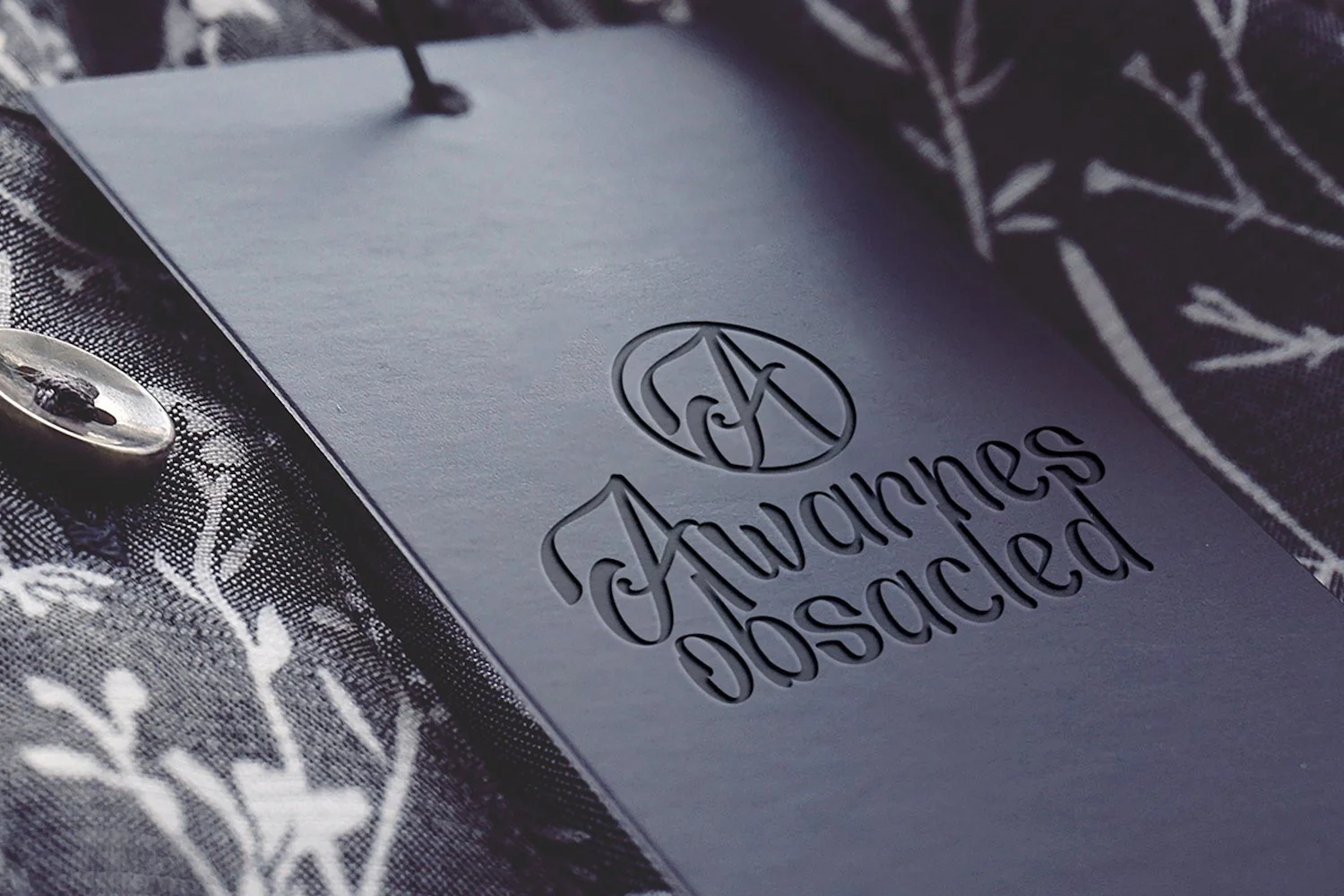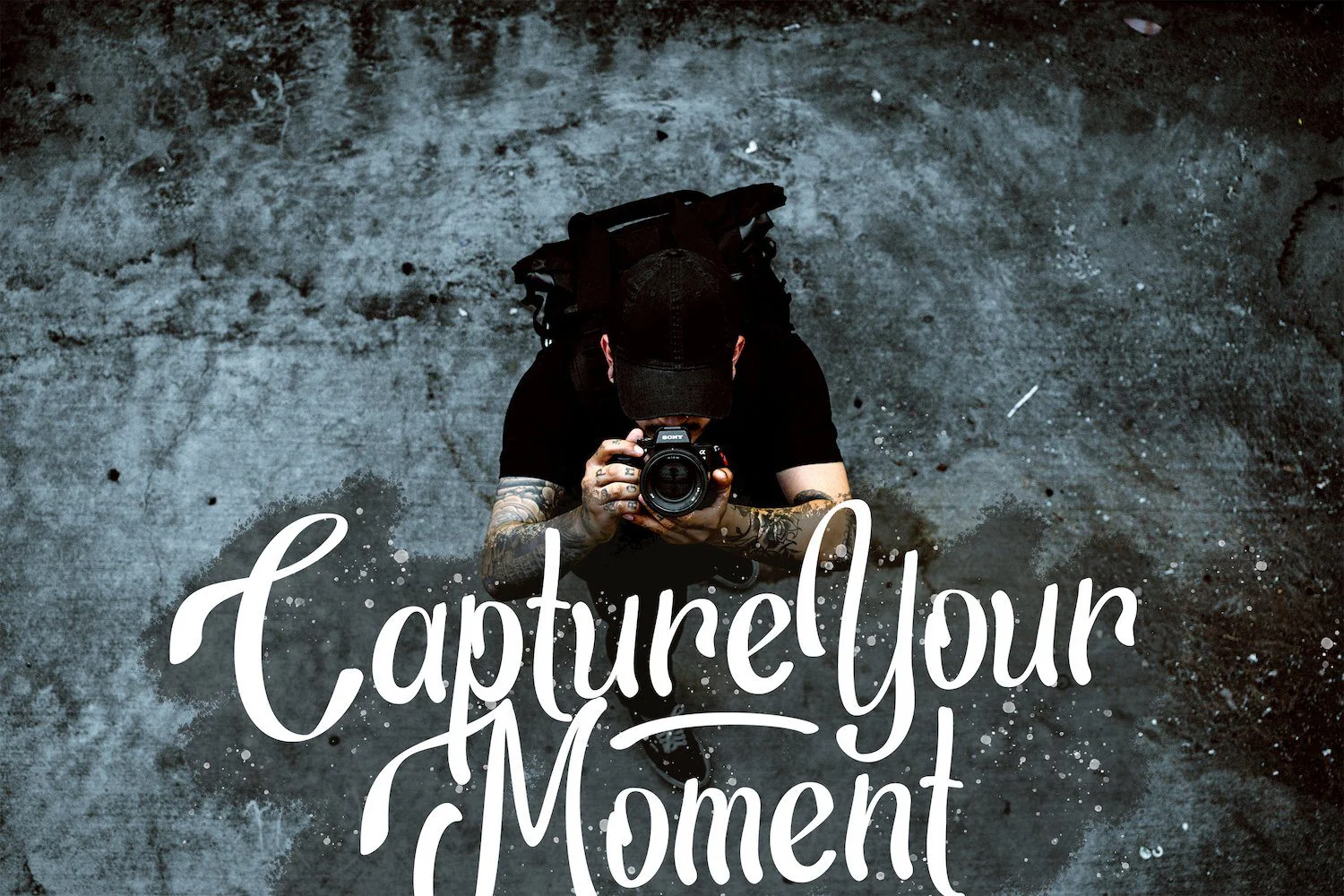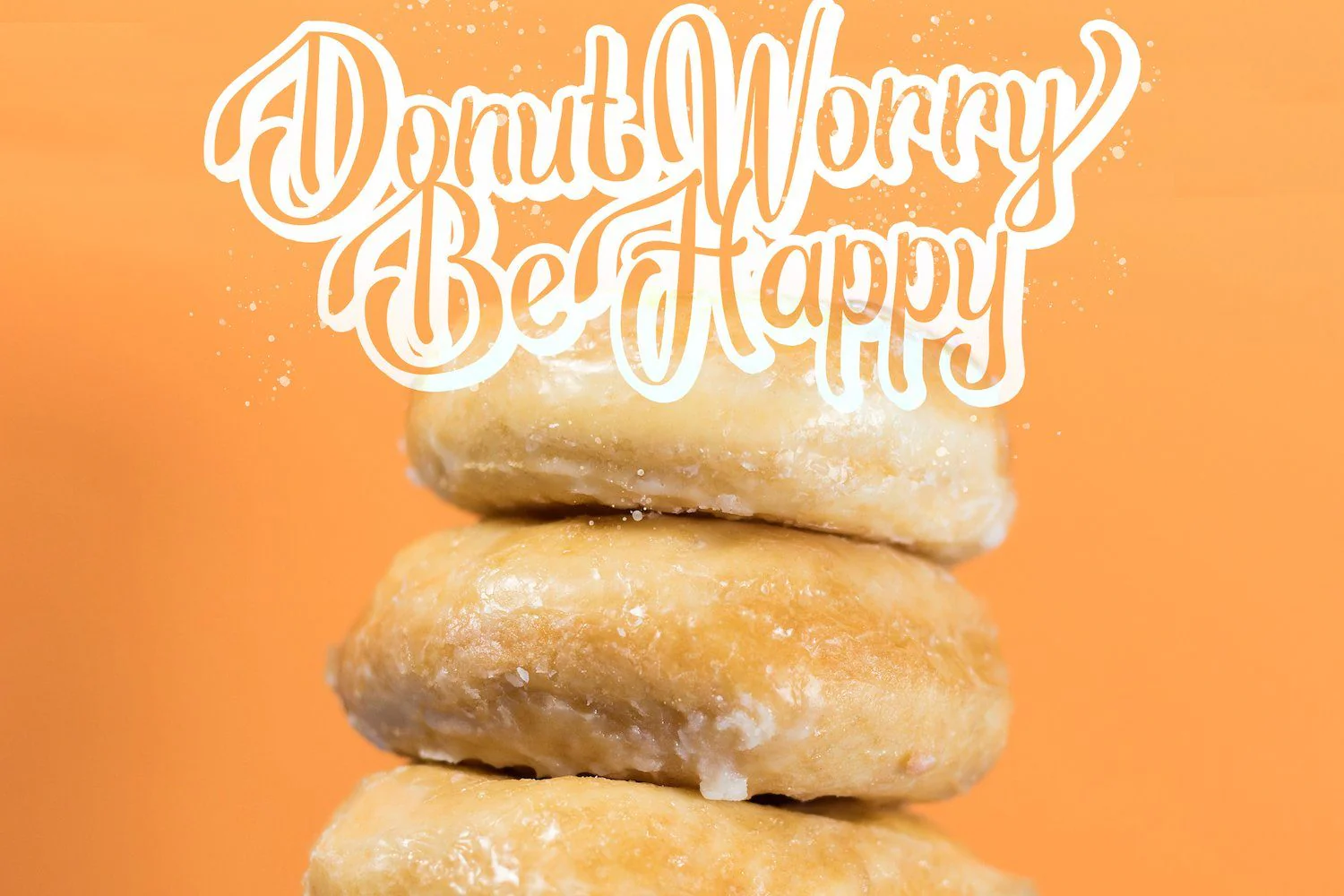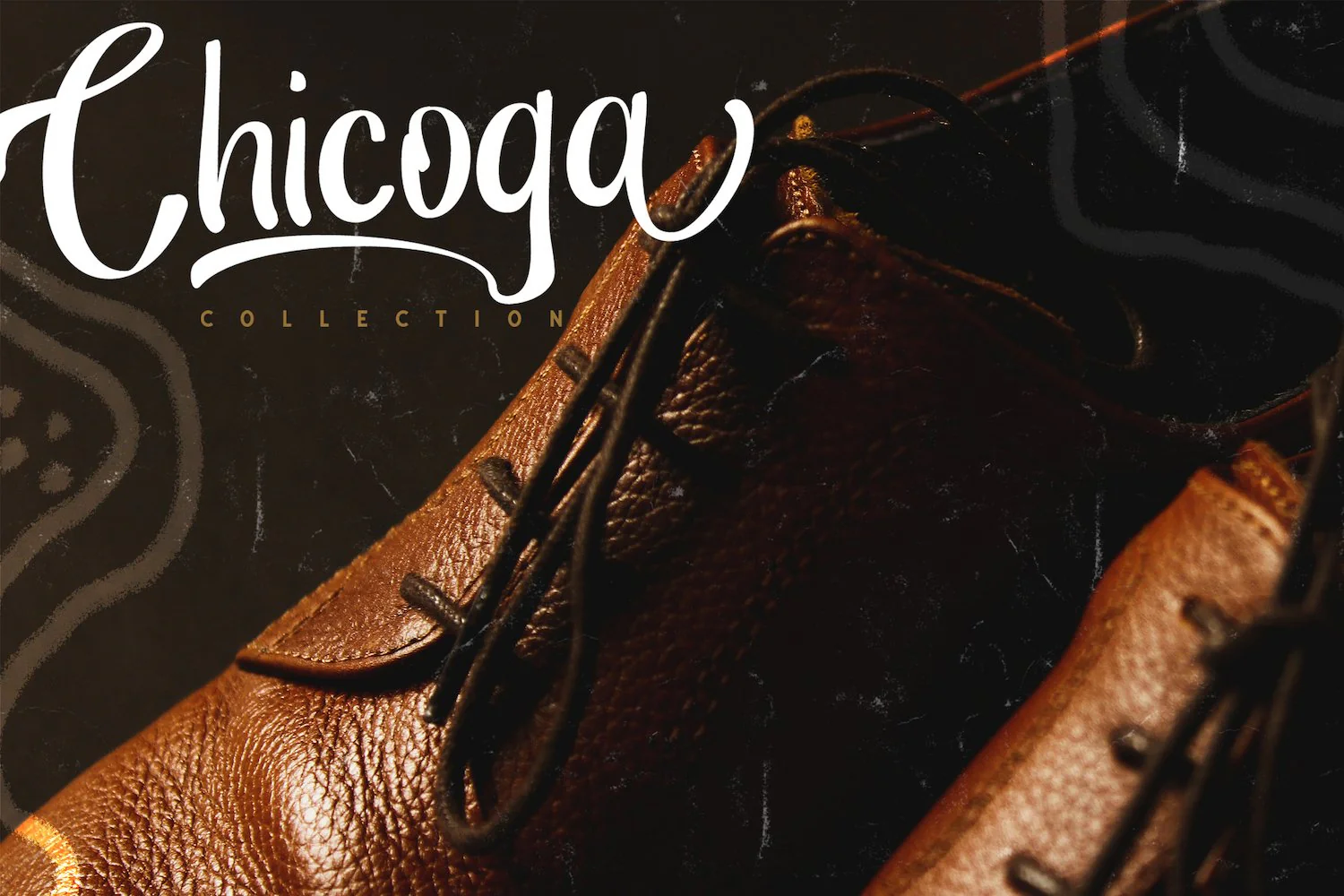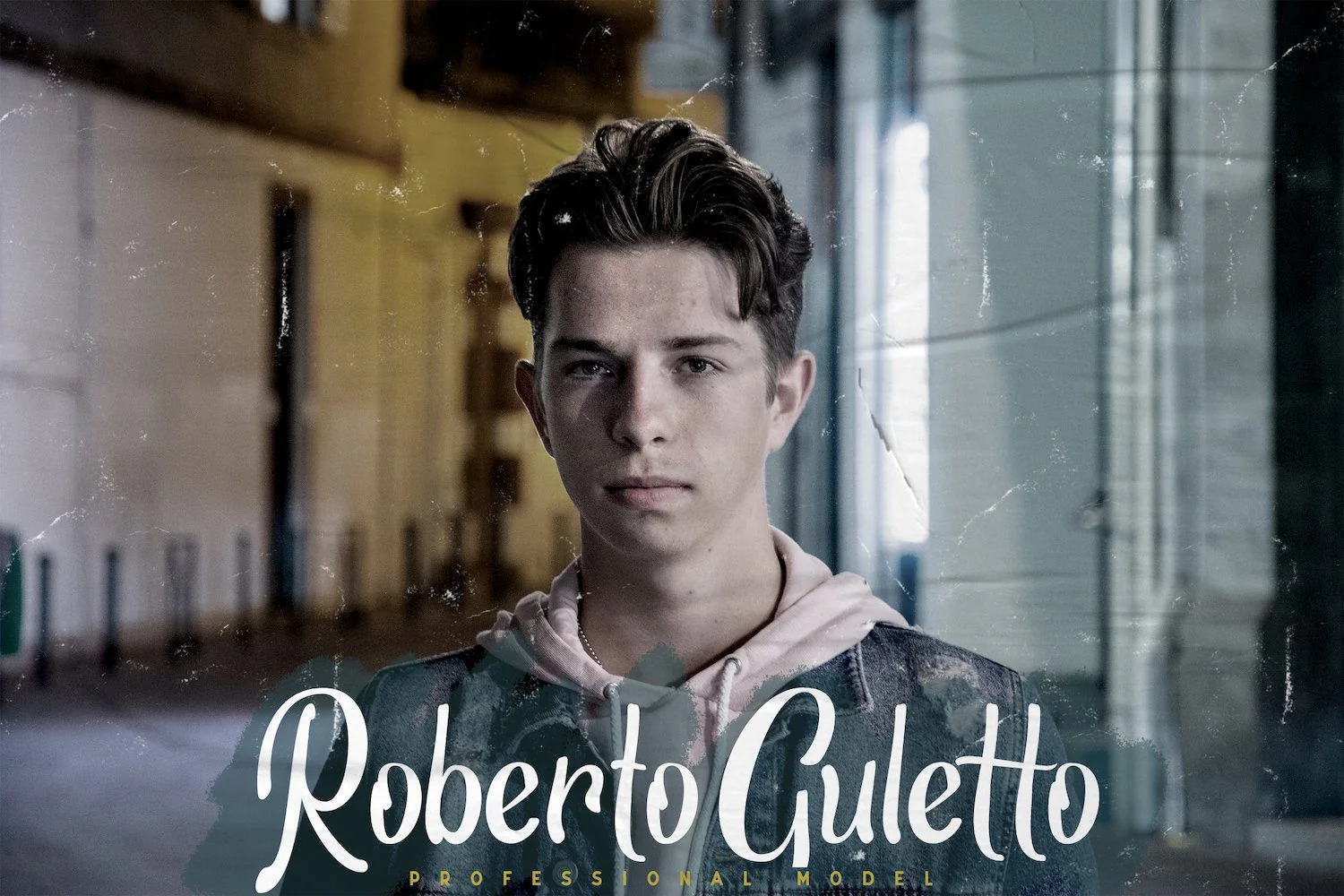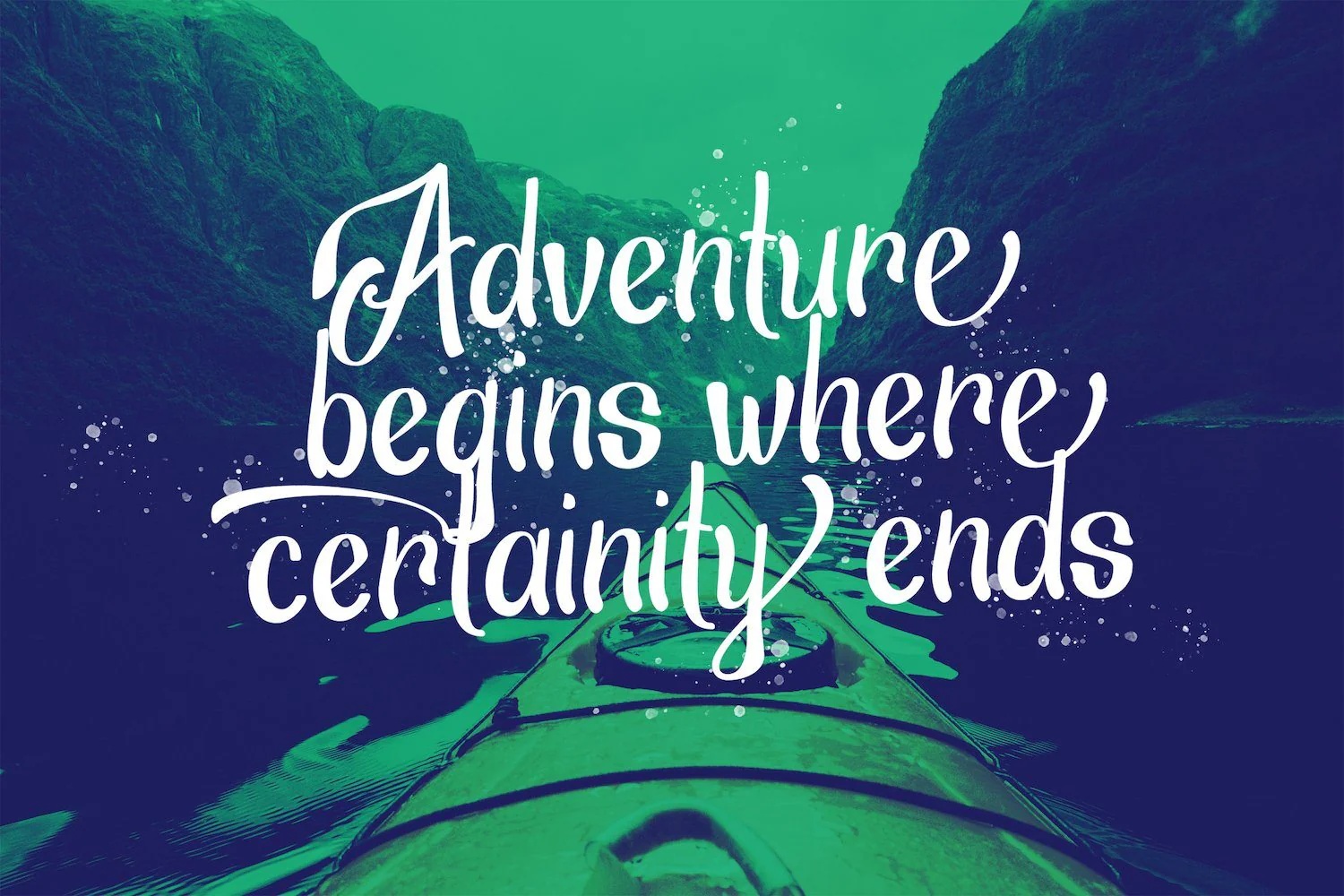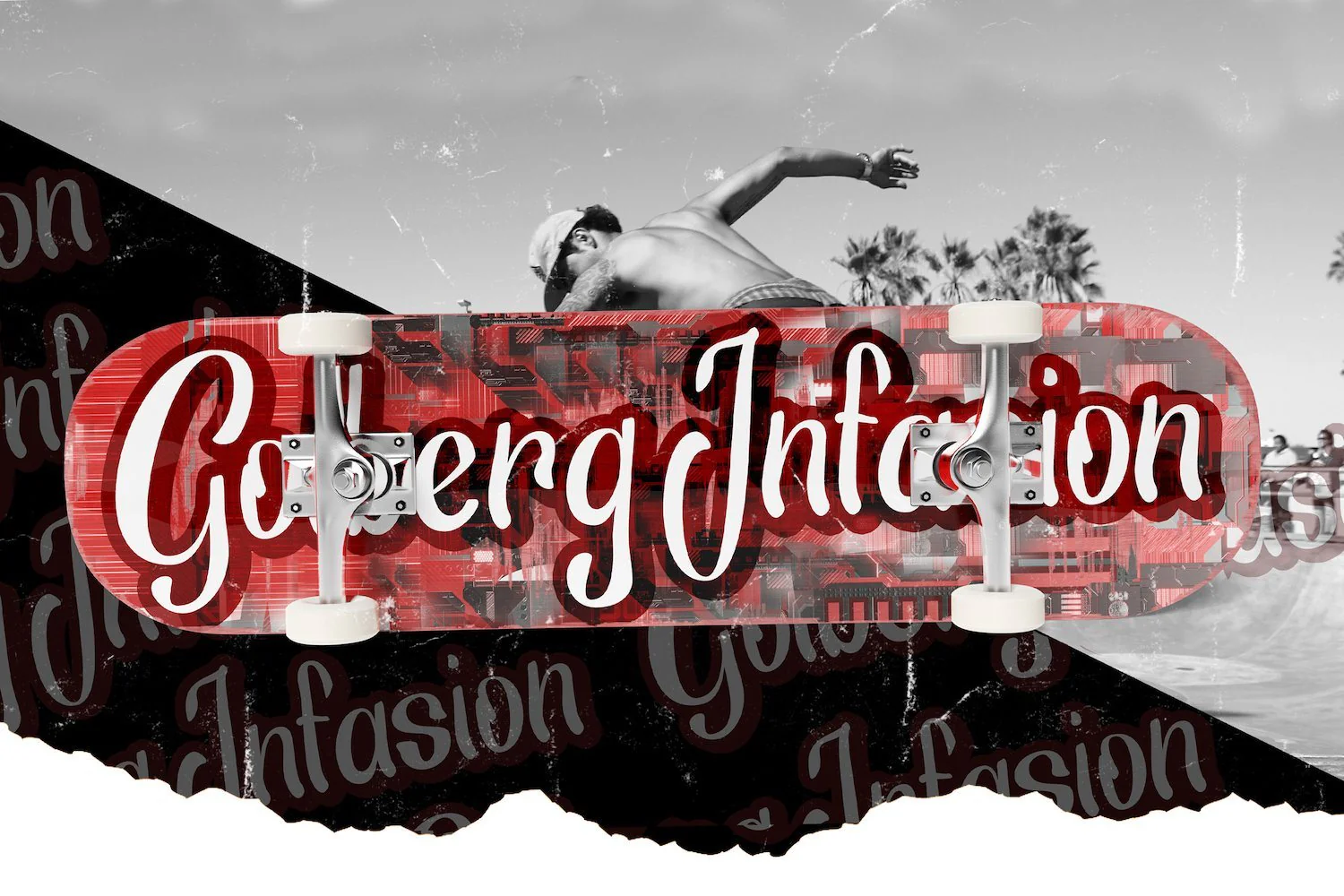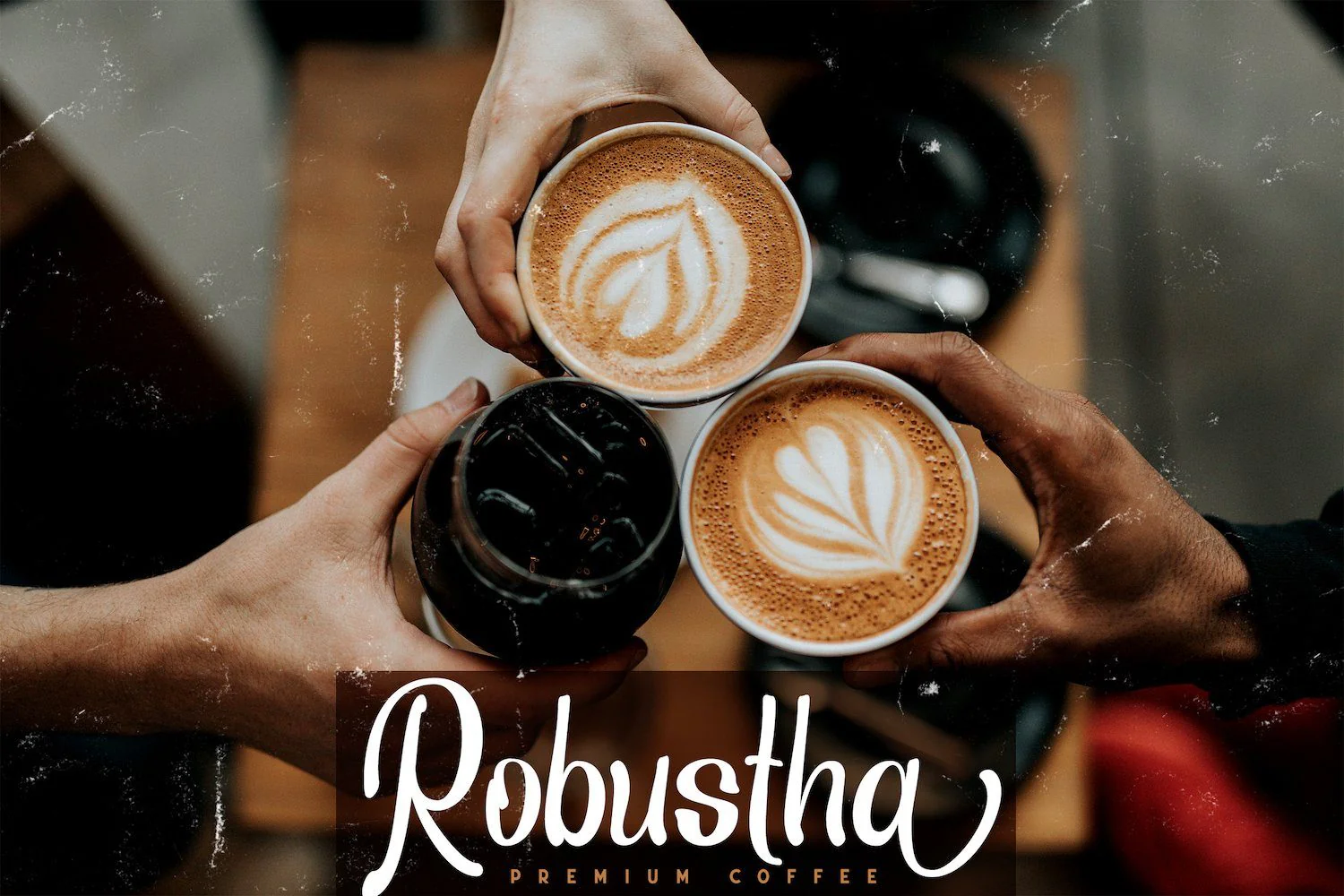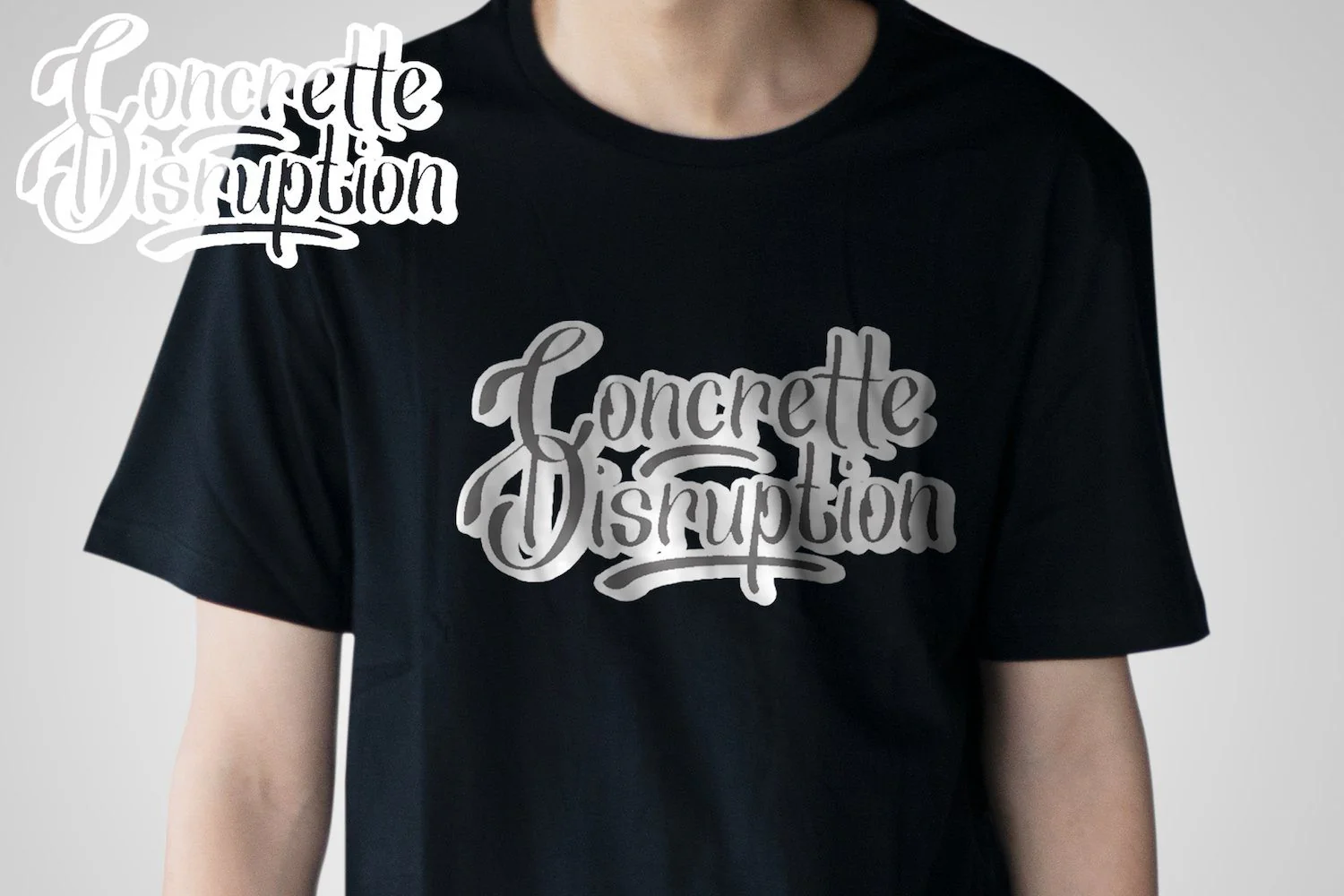
Ansagia Metta - Bold Script Font
Introducing Ansagia Metta - Bold Script Font
Ansagia Metta is a flowing handwritten font, described by an elegant touch, ideal for your urban creations. Get inspired by its distinct style and use it to create lovely designs!
Introducing Ansagia Metta - Bold Script Font
Ansagia Metta is a flowing handwritten font, described by an elegant touch, ideal for your urban creations. Get inspired by its distinct style and use it to create lovely designs!